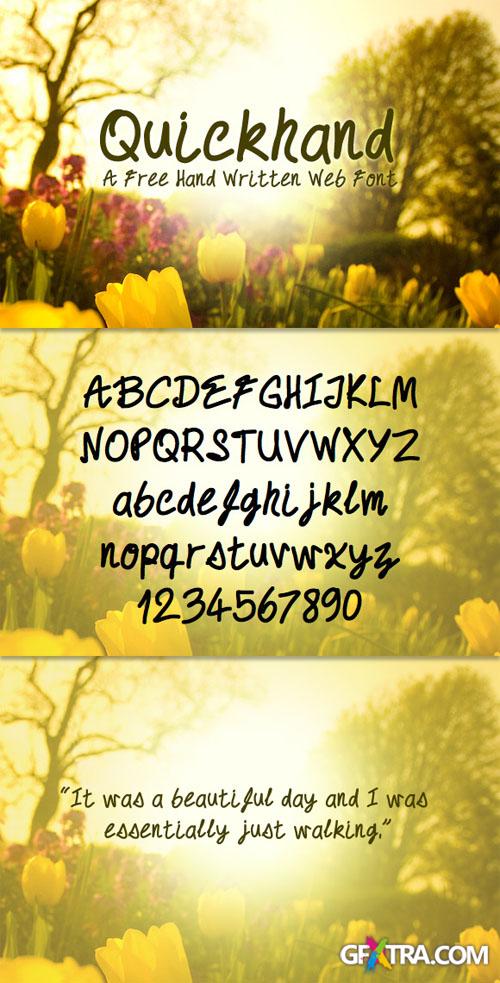
WeGraphics - QuickHand Hand Written Web Font
QuickHand is a free web font with a sloppy half cursive style. The font includes 198 glyphs. Attached is everything you need to embed the font into your next web project.